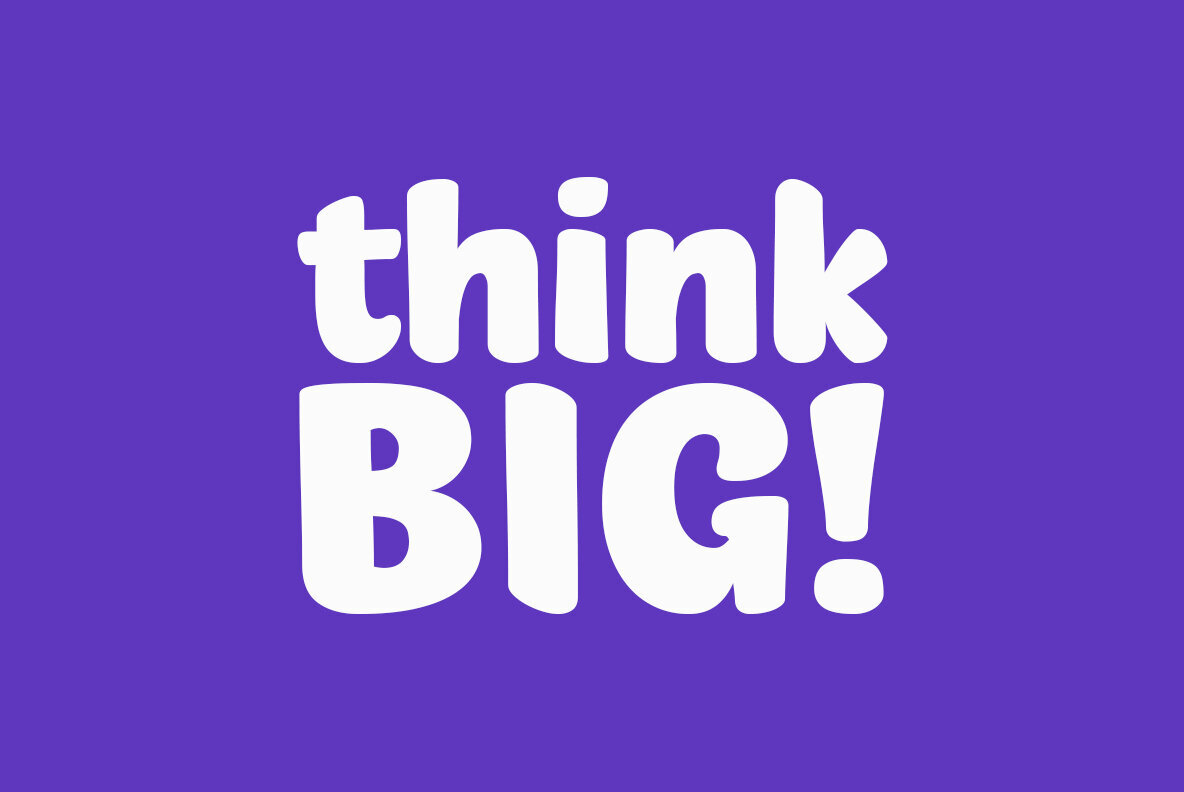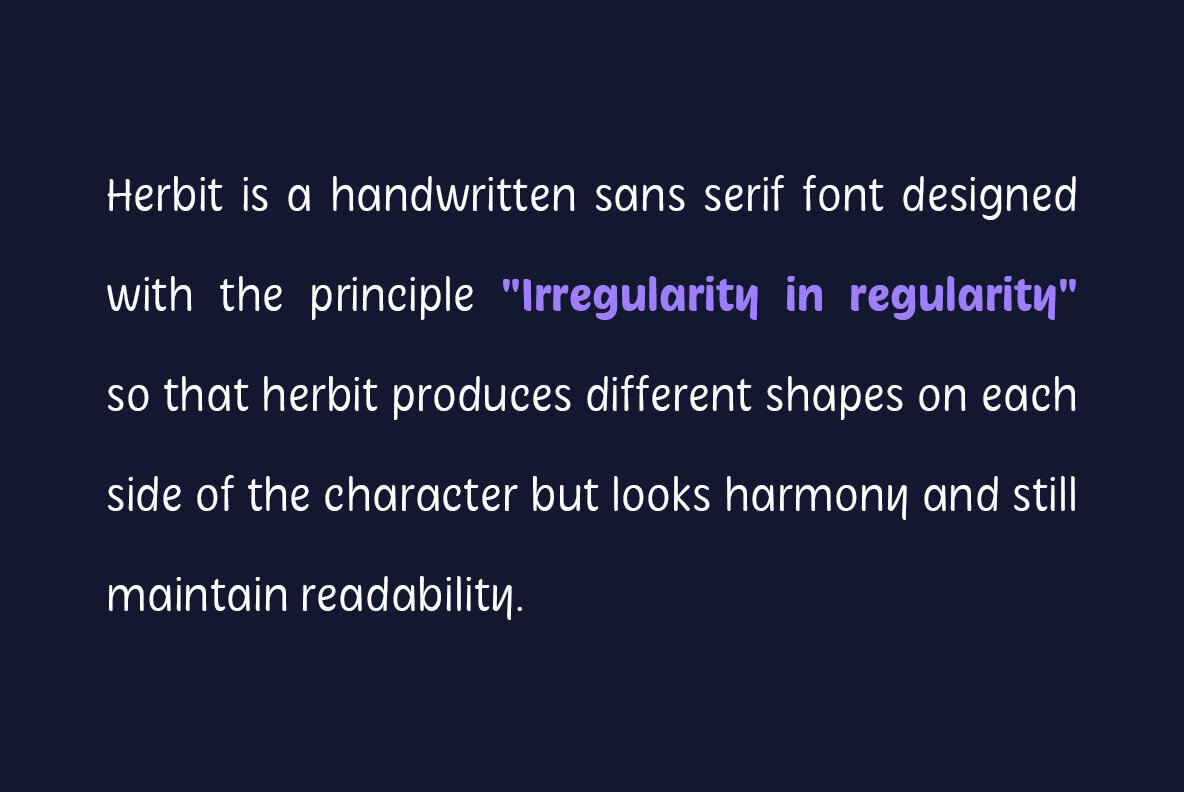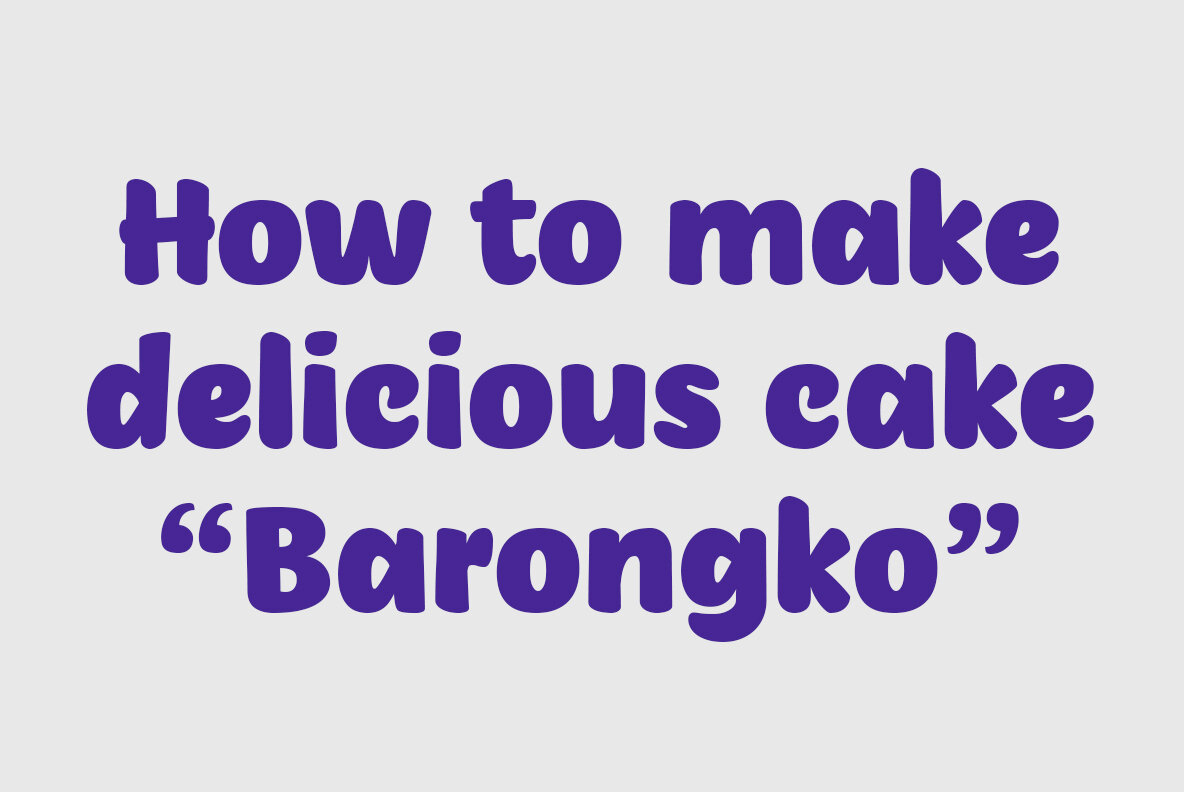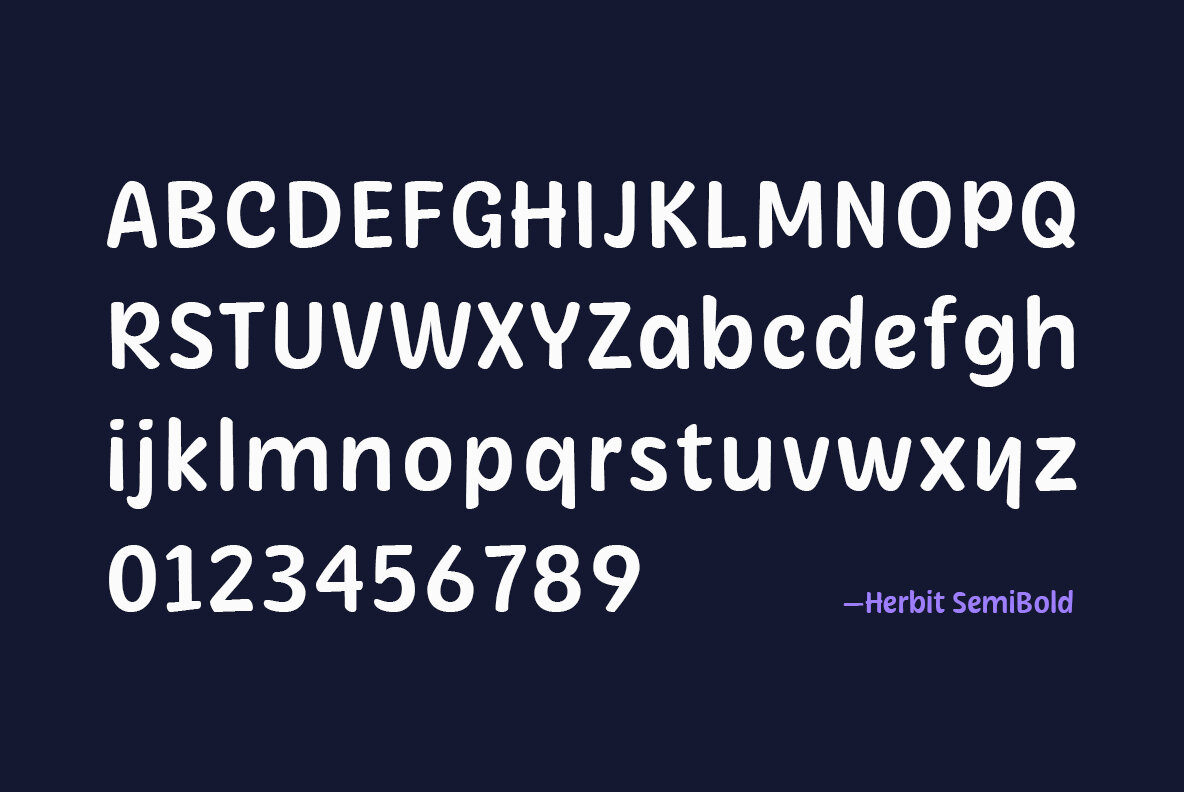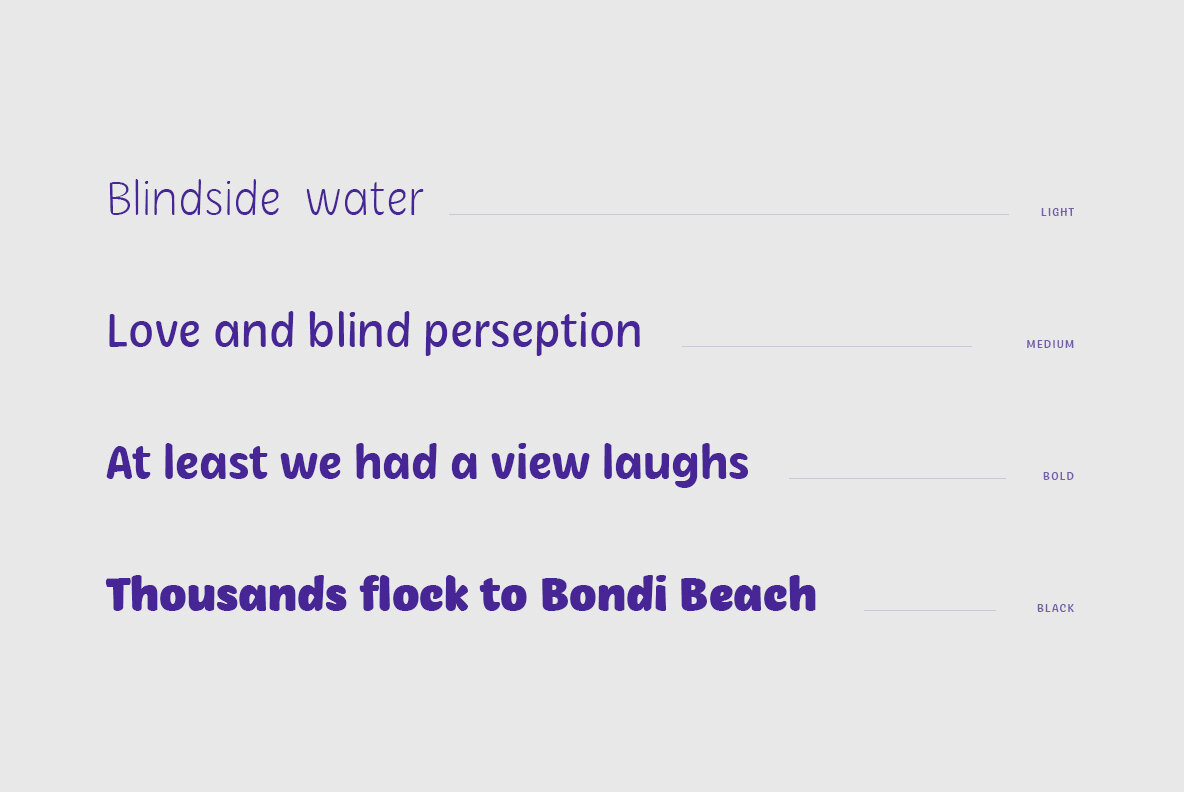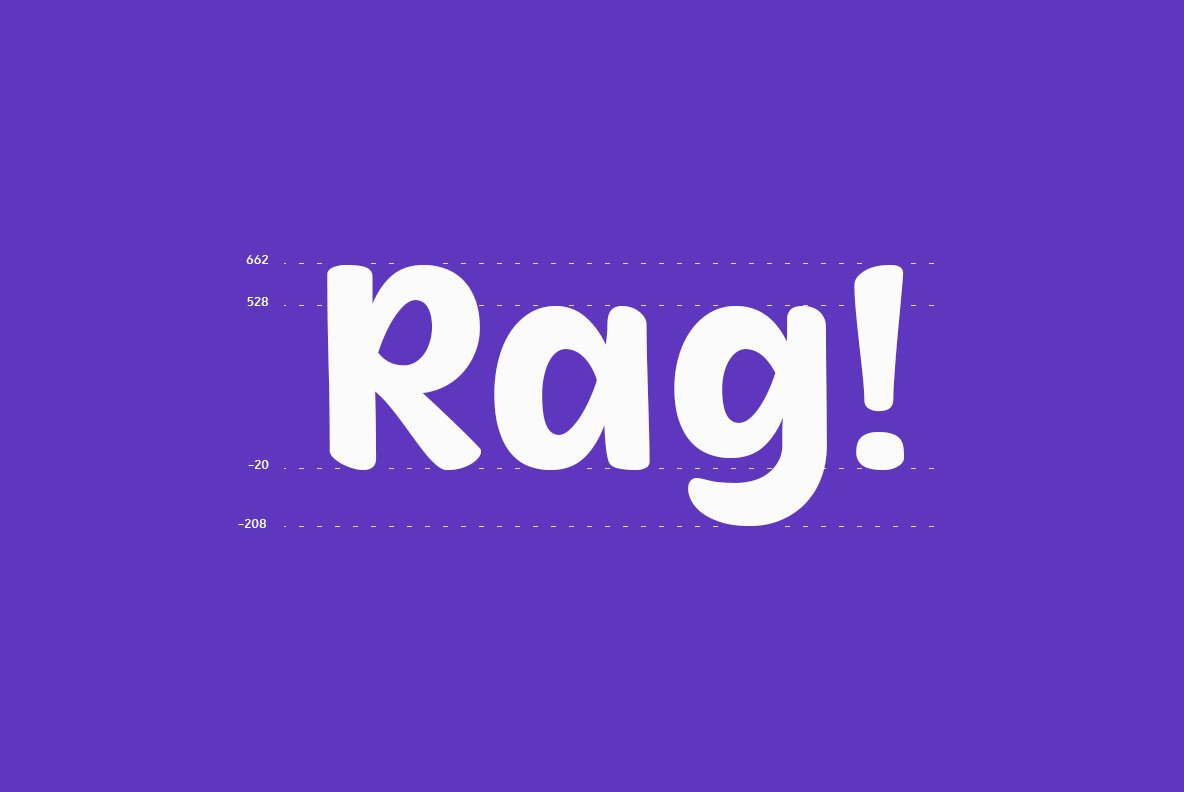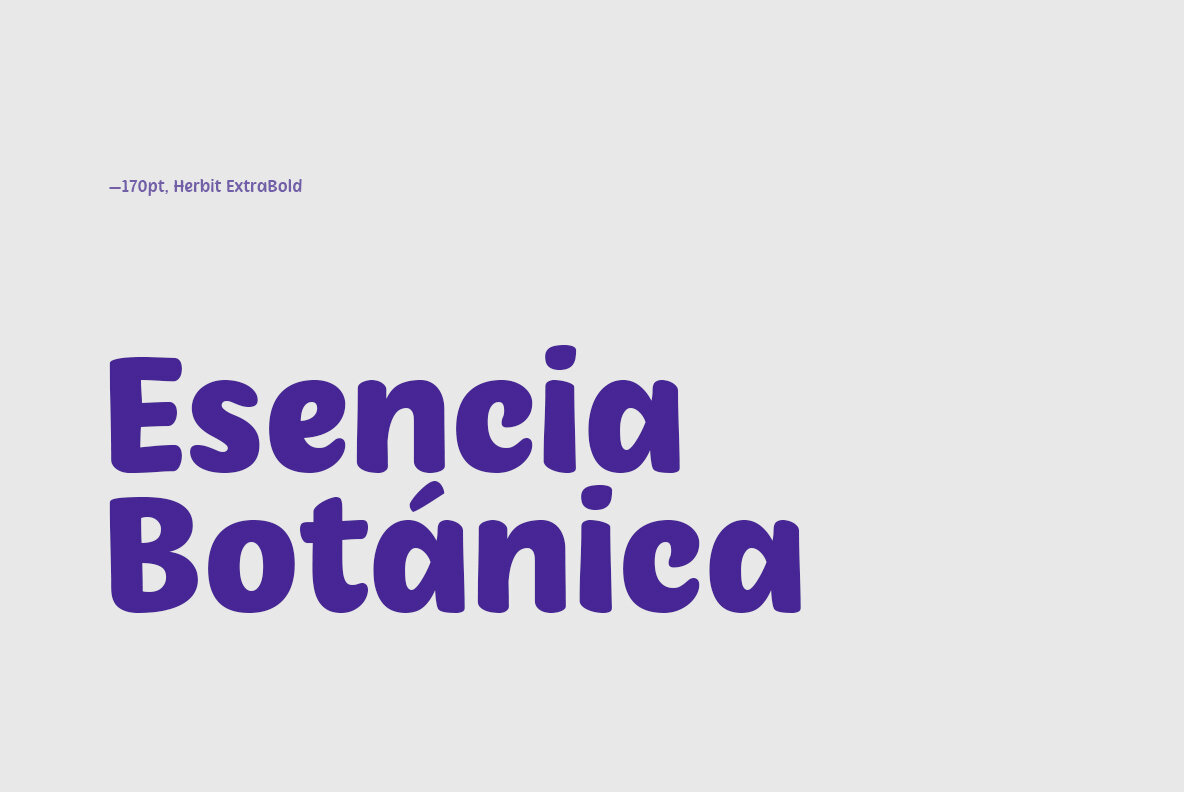
Herbit Font
Herbit is a handwritten sans-serif font designed with the principle of 'Irregularity in regularity.' This approach ensures that Herbit creates distinct shapes on each side of the characters while maintaining harmony and readability. The font family comprises seven weights, ranging from Light to Black, and includes multilingual support. It is ideally suited for branding, logos, advertising, packaging, editorial and publishing projects, as well as web and screen design.